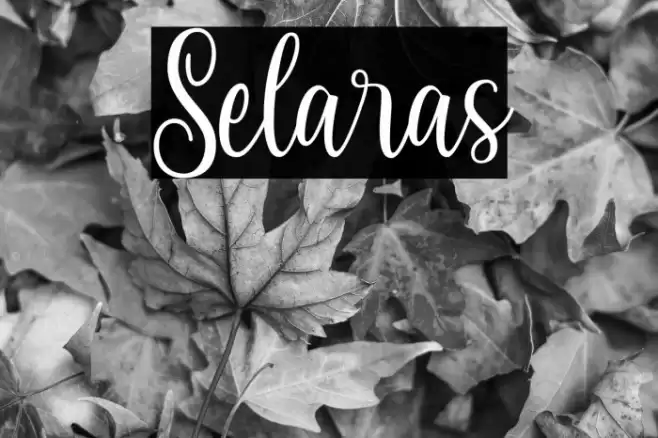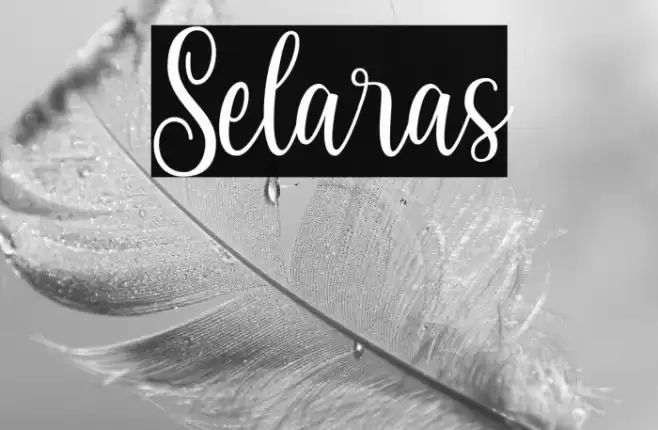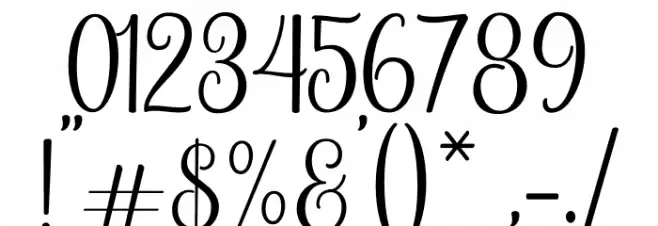
Selaras Font
Selaras Description
This font features a playful and elegant script style with a handwritten touch. The uppercase letters are characterized by their flowing, cursive forms, while the lowercase letters maintain a consistent, smooth stroke. The numerals are clear and easy to read, complementing the overall aesthetic. Special characters are designed with the same attention to detail, ensuring a cohesive look across all glyphs. The font's design is both decorative and functional, making it suitable for a variety of creative projects.
A playful and elegant script font with a handwritten style from Uncategorized fonts.
- Proposed Projects: Ideal for wedding invitations, greeting cards, branding, and social media graphics.